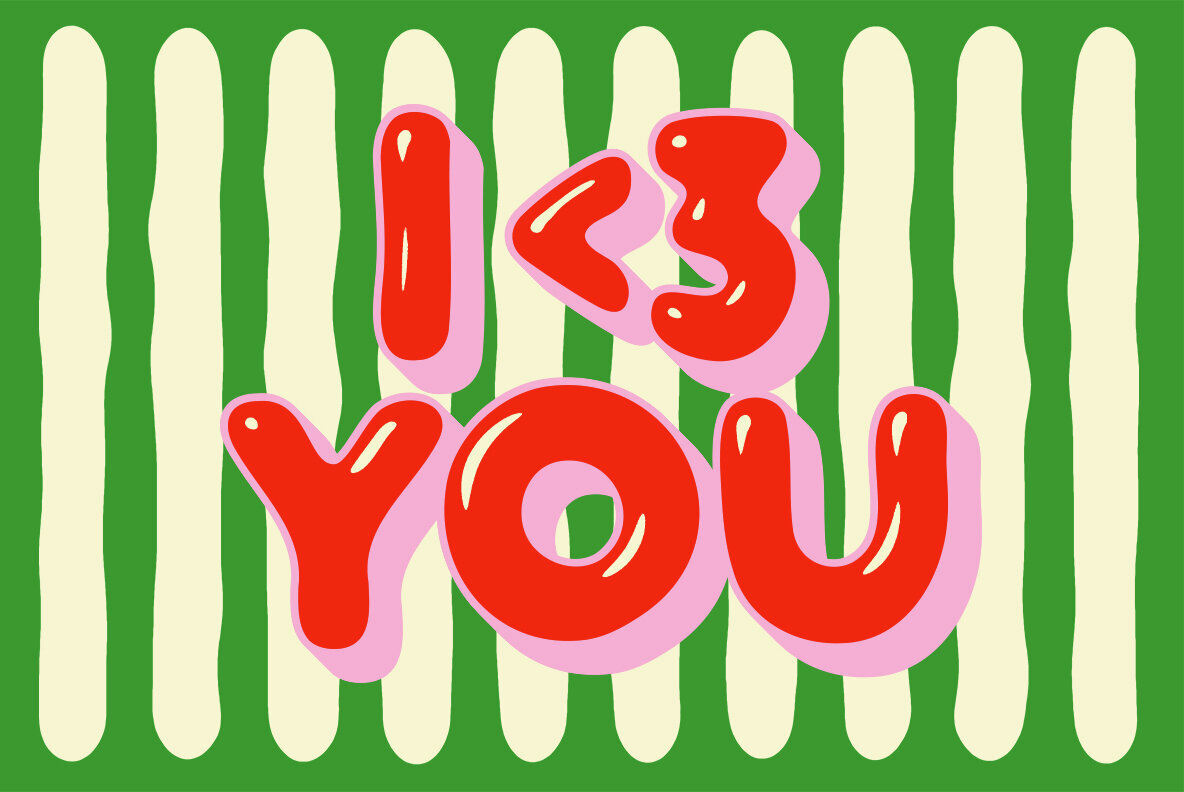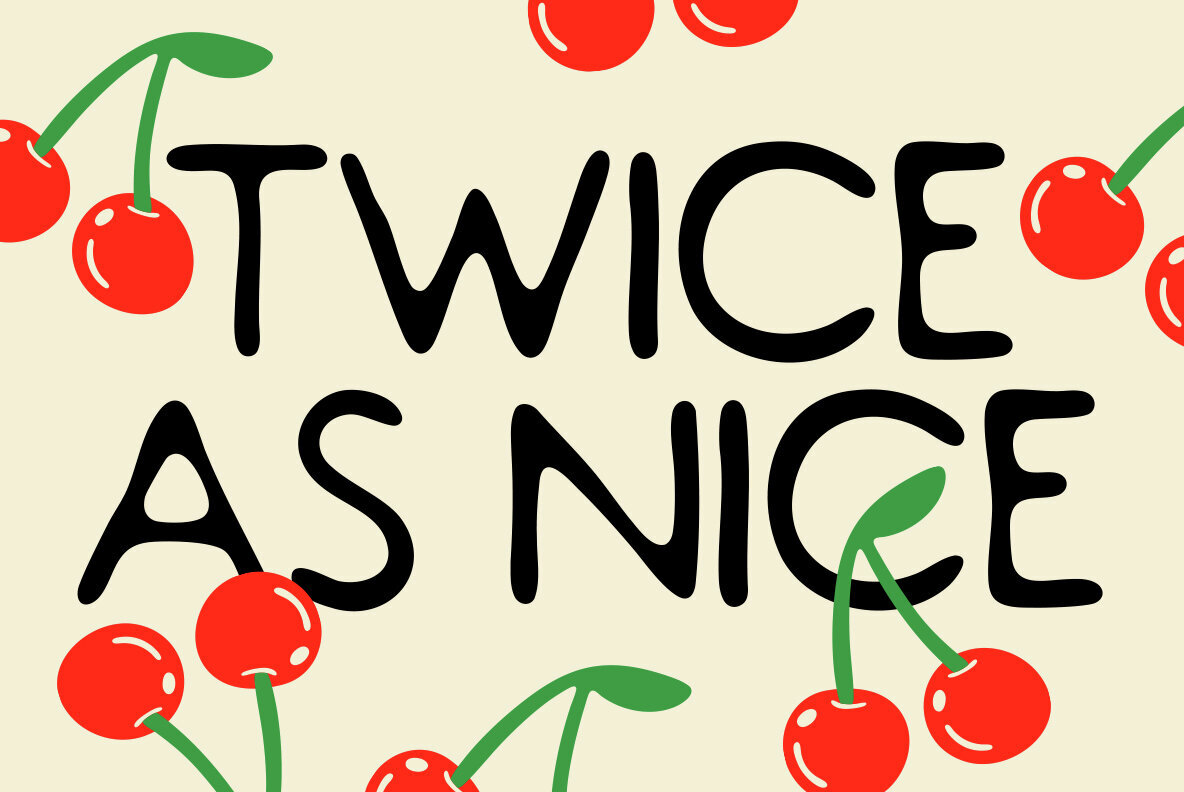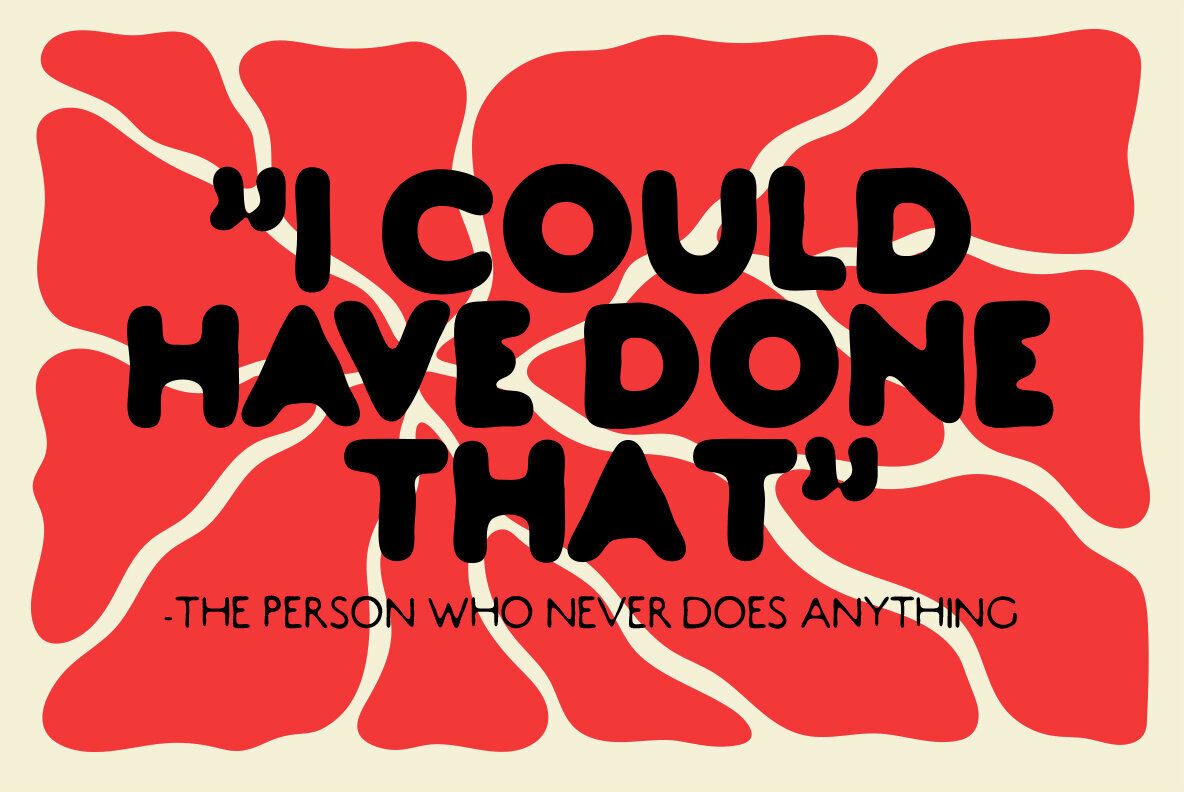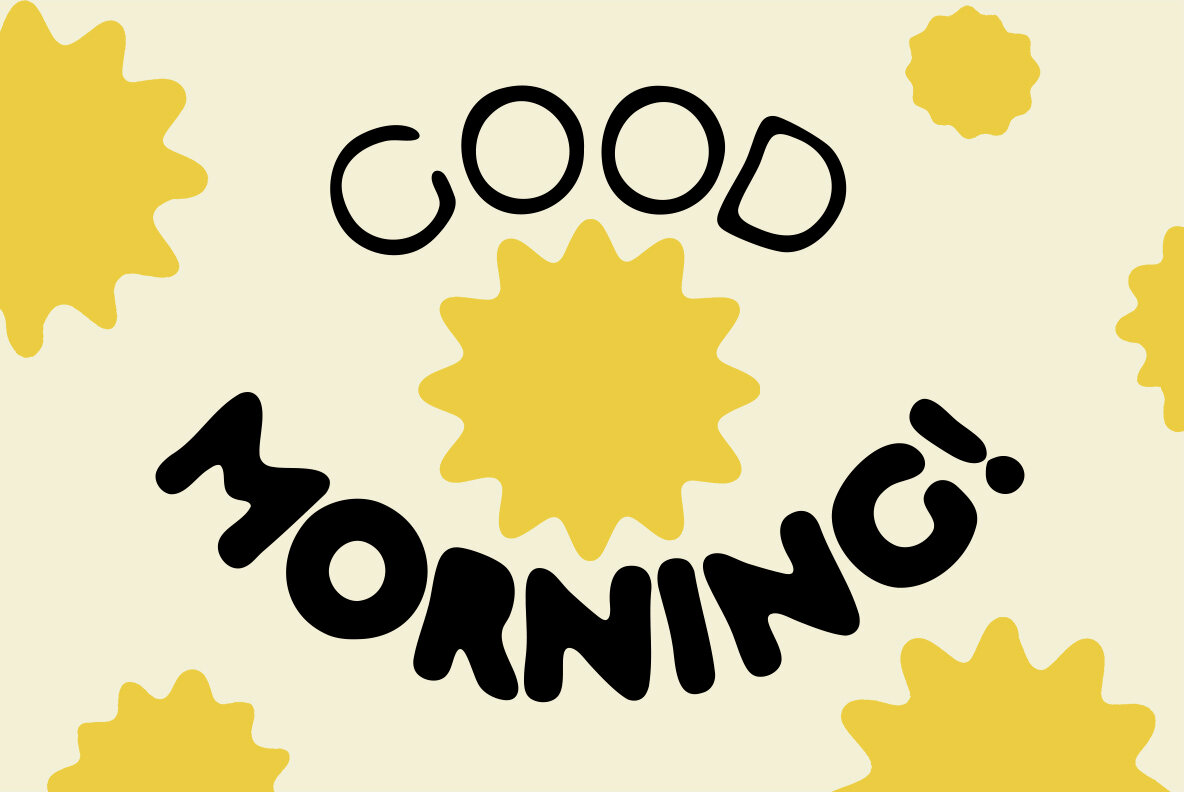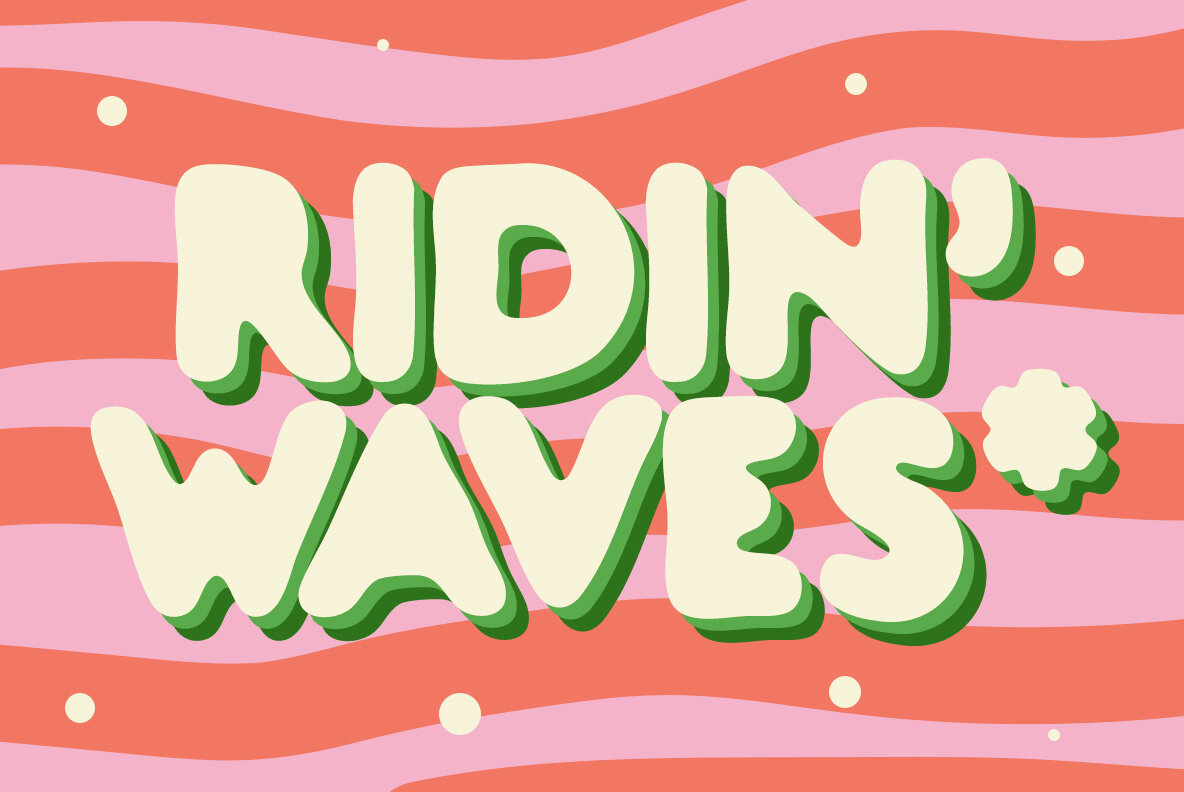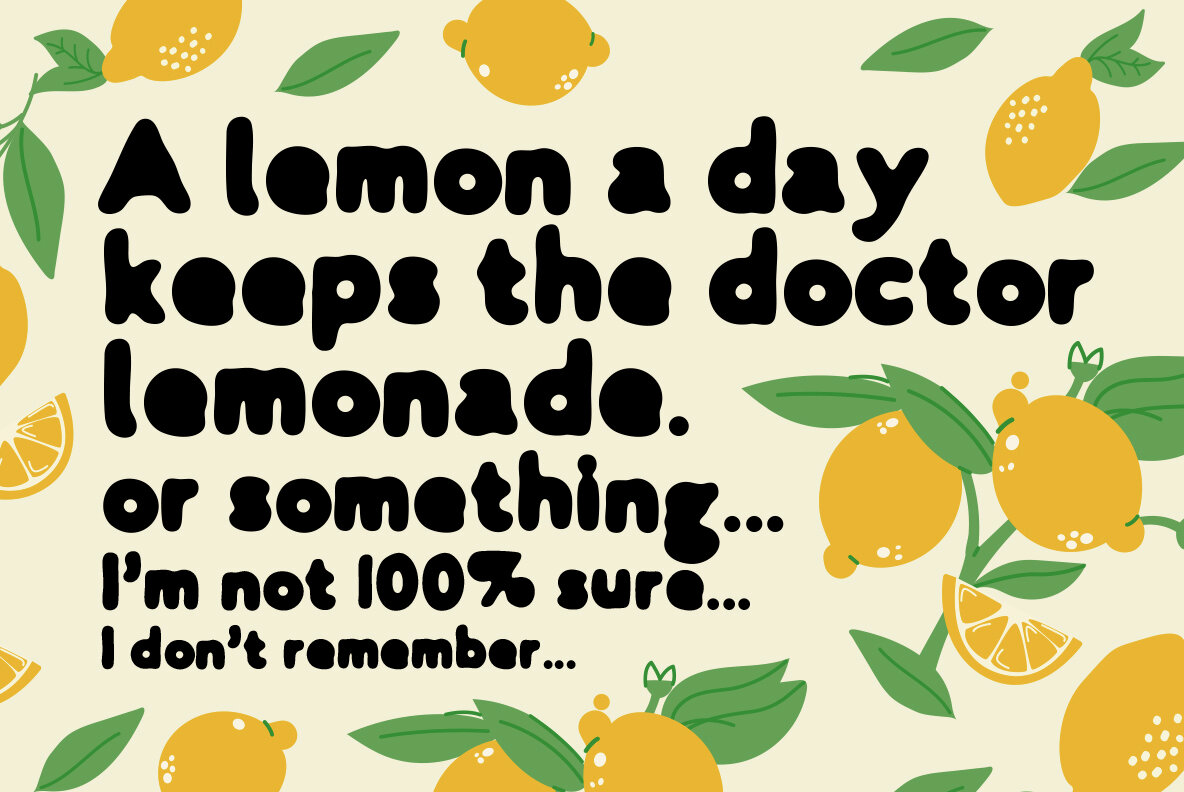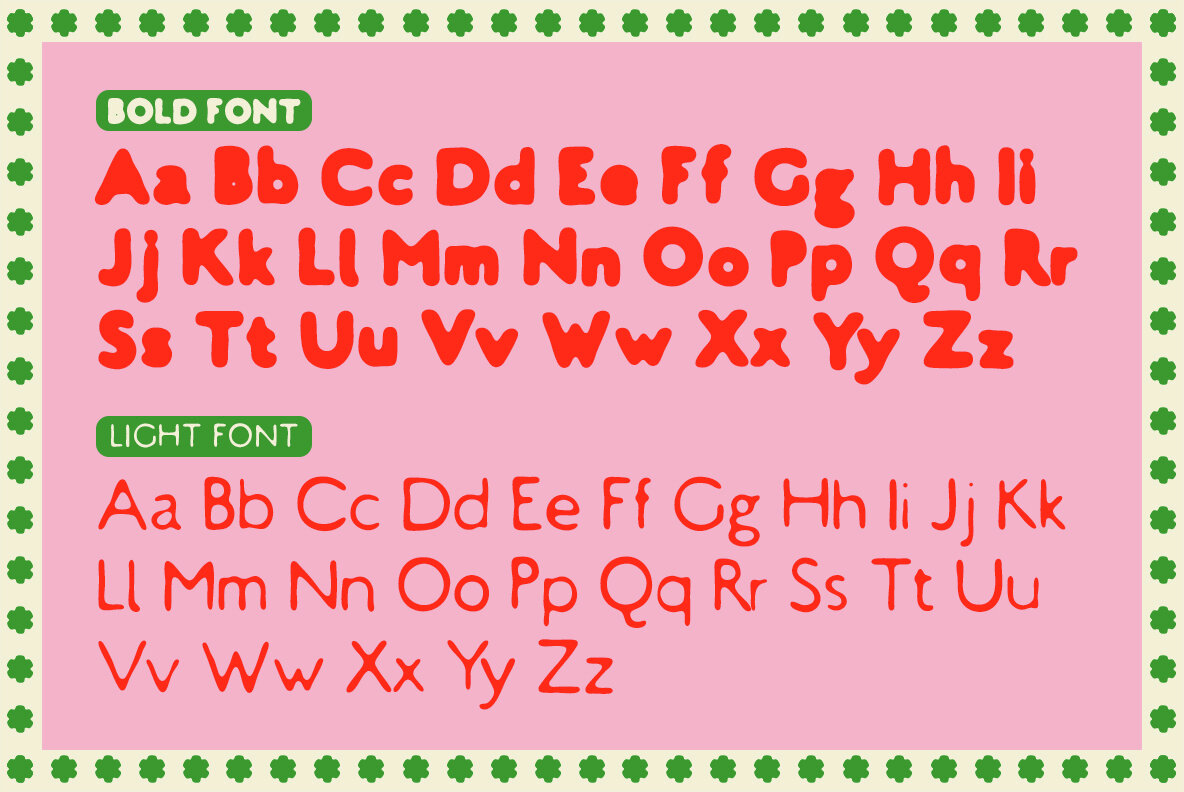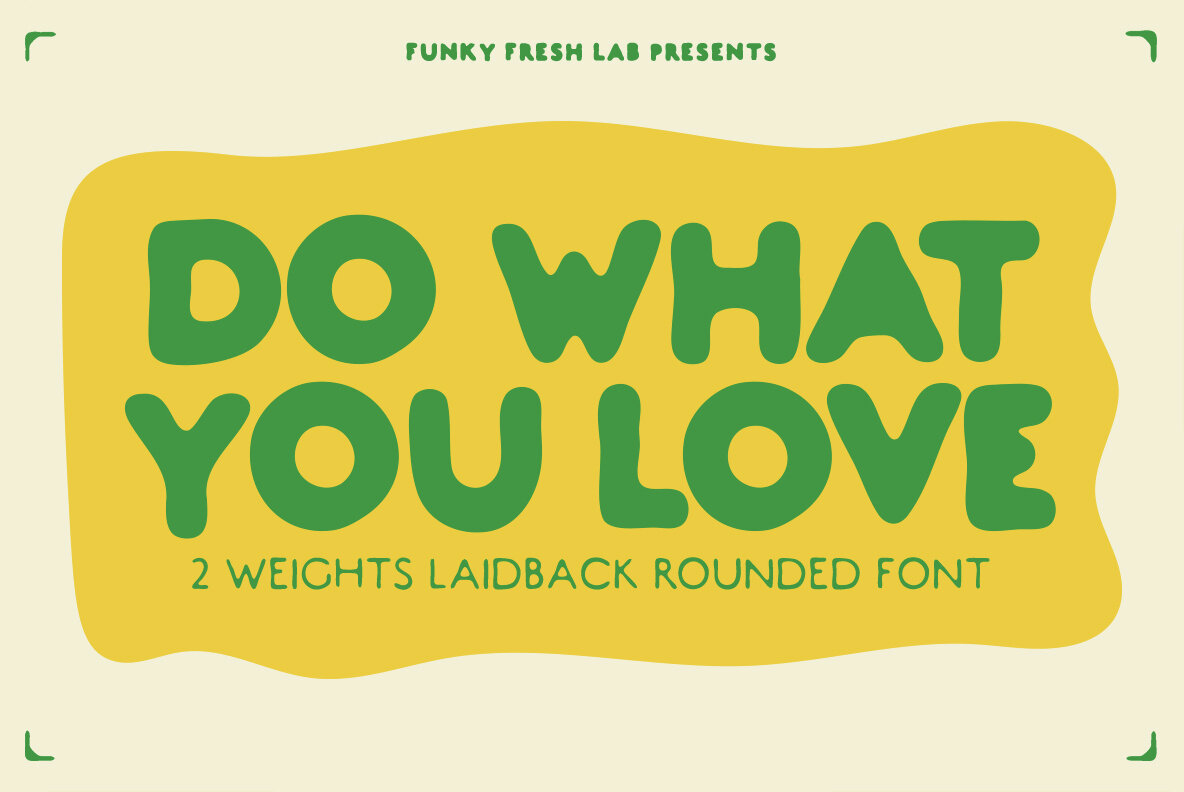
Introducing Do What You Love – a playful and versatile hand-drawn font that combines the charm of a rounded sans serif design with the unique touch of handcrafted details.
This font comes in two distinct weights: Light and Heavy, offering the perfect balance between elegance and boldness.
Its smooth curves and modern feel make it an excellent choice for a wide range of projects, from branding and logos to invitations and social media graphics.
Whether you're looking to create a friendly and approachable design or make a bold statement, Do What You Love adds a personal, artistic flair to any project.